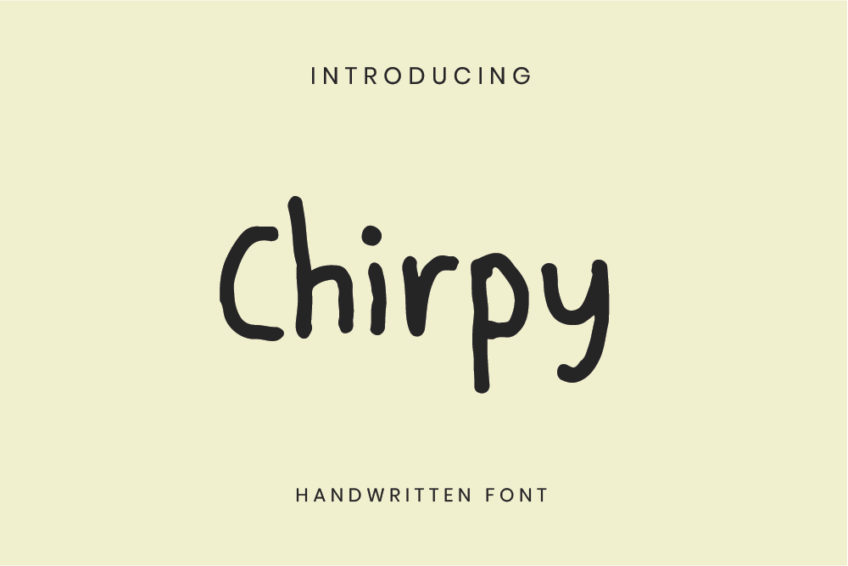
Introducing Chirpy Handwritten Font, a delightful handwriting font for kindergarten learning materials. This playful and whimsical font is designed to engage young learners with its friendly and approachable appearance. The charming handcrafted details make Chirpy an ideal choice for creating vibrant and educational content.
Chirpy’s simplicity and clarity enhance readability, making it an excellent companion for worksheets, flashcards, and other educational resources. This handwriting font for kindergarten warm and inviting style fosters a positive learning environment, capturing the attention of young minds and making the process enjoyable.
Choose Chirpy Handwritten Font to bring a touch of joy and readability to your kindergarten materials. Make learning fun and memorable with this endearing typeface.